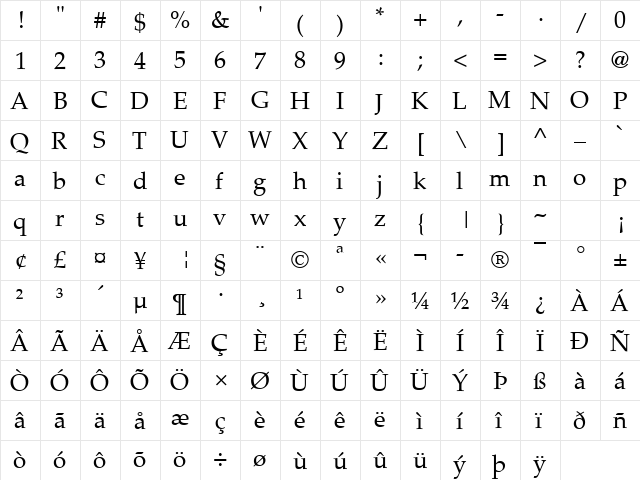
P052L Regular
Design Context for P052L Typeface
P052L offers clean, dependable letterforms without strong stylistic allegiance, making it a practical choice for designers who need flexibility.